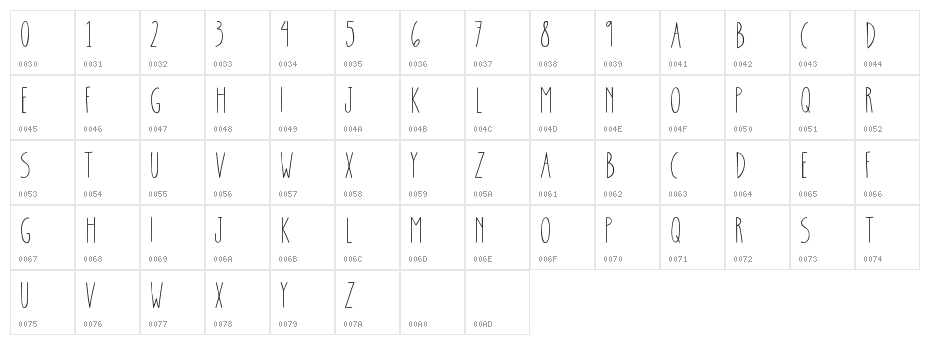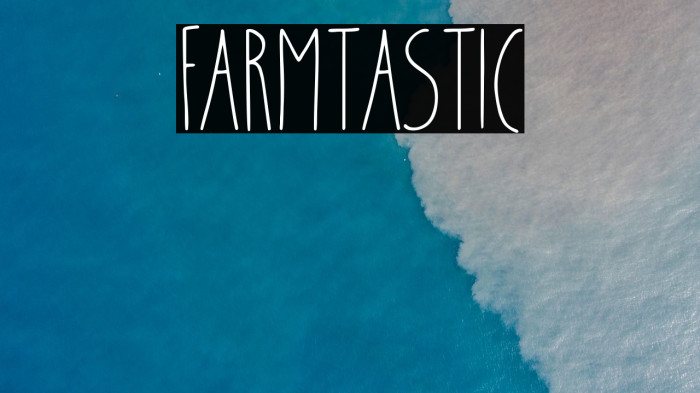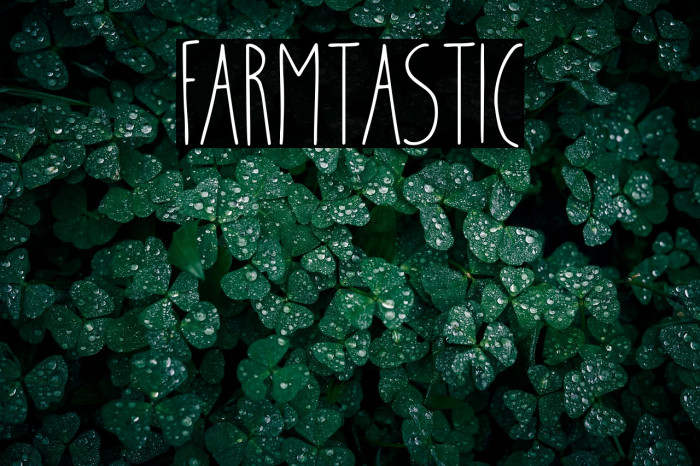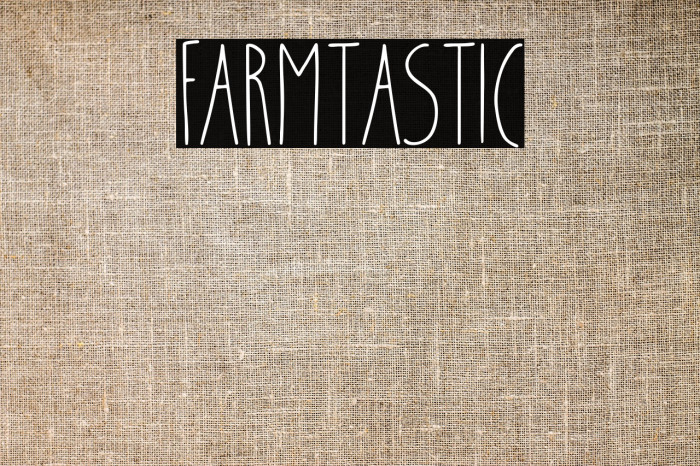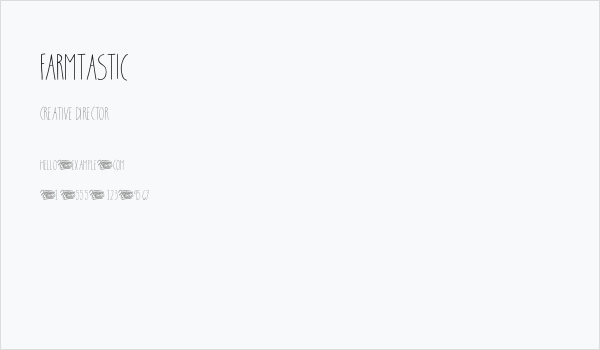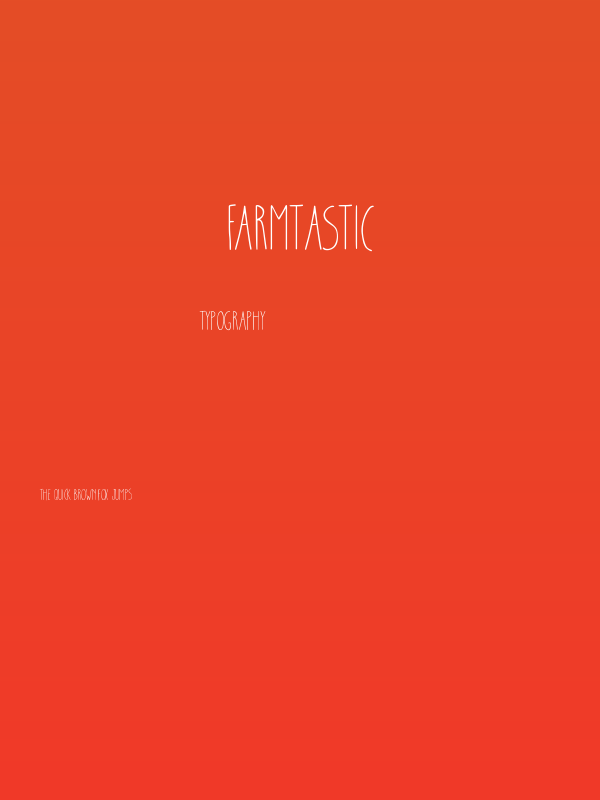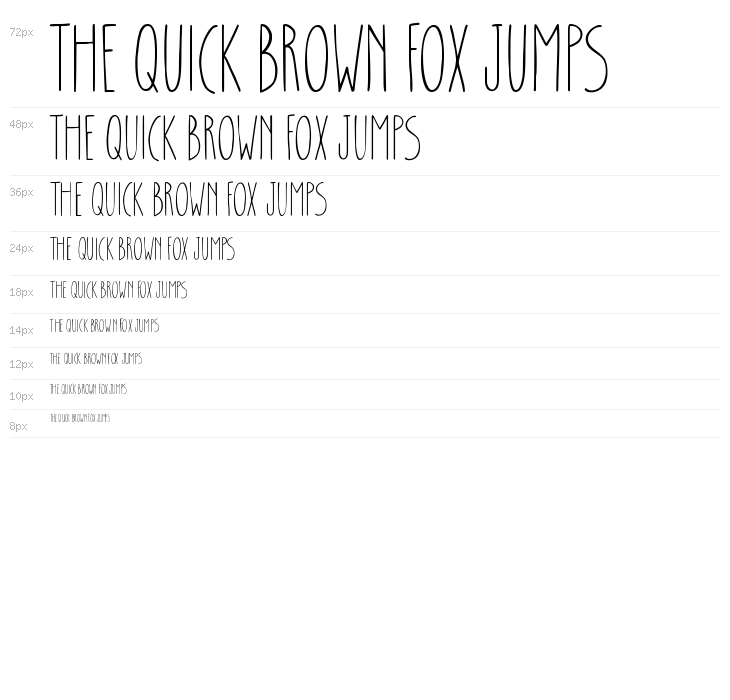
Farmtastic Font
Farmtastic Description
A tall, narrow handwritten font with a playful and informal style, featuring thin strokes and a casual appearance.
| Use Case | Headlines, Informal text |
| Proposed Projects | Greeting cards, invitations, children's books. |